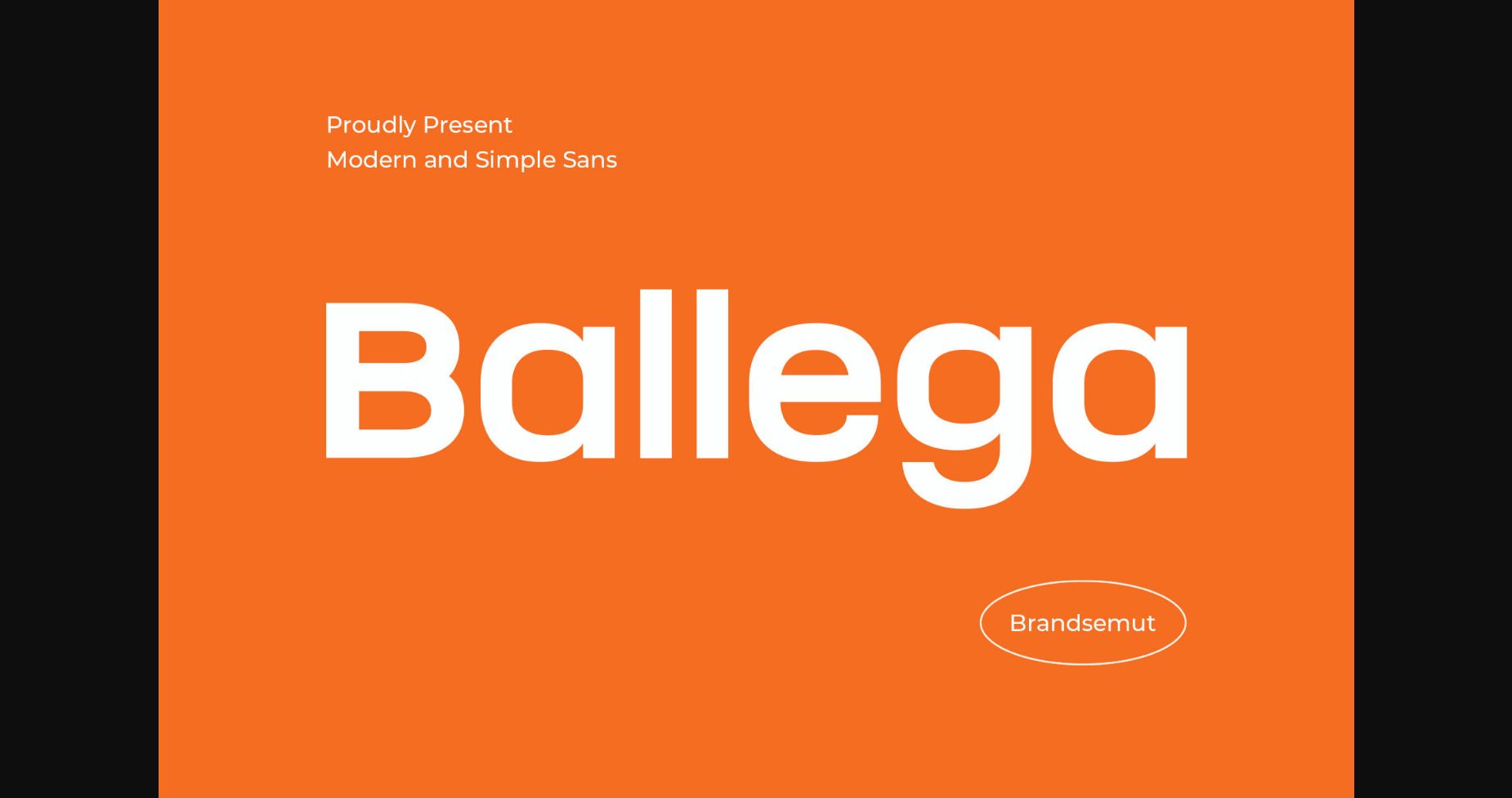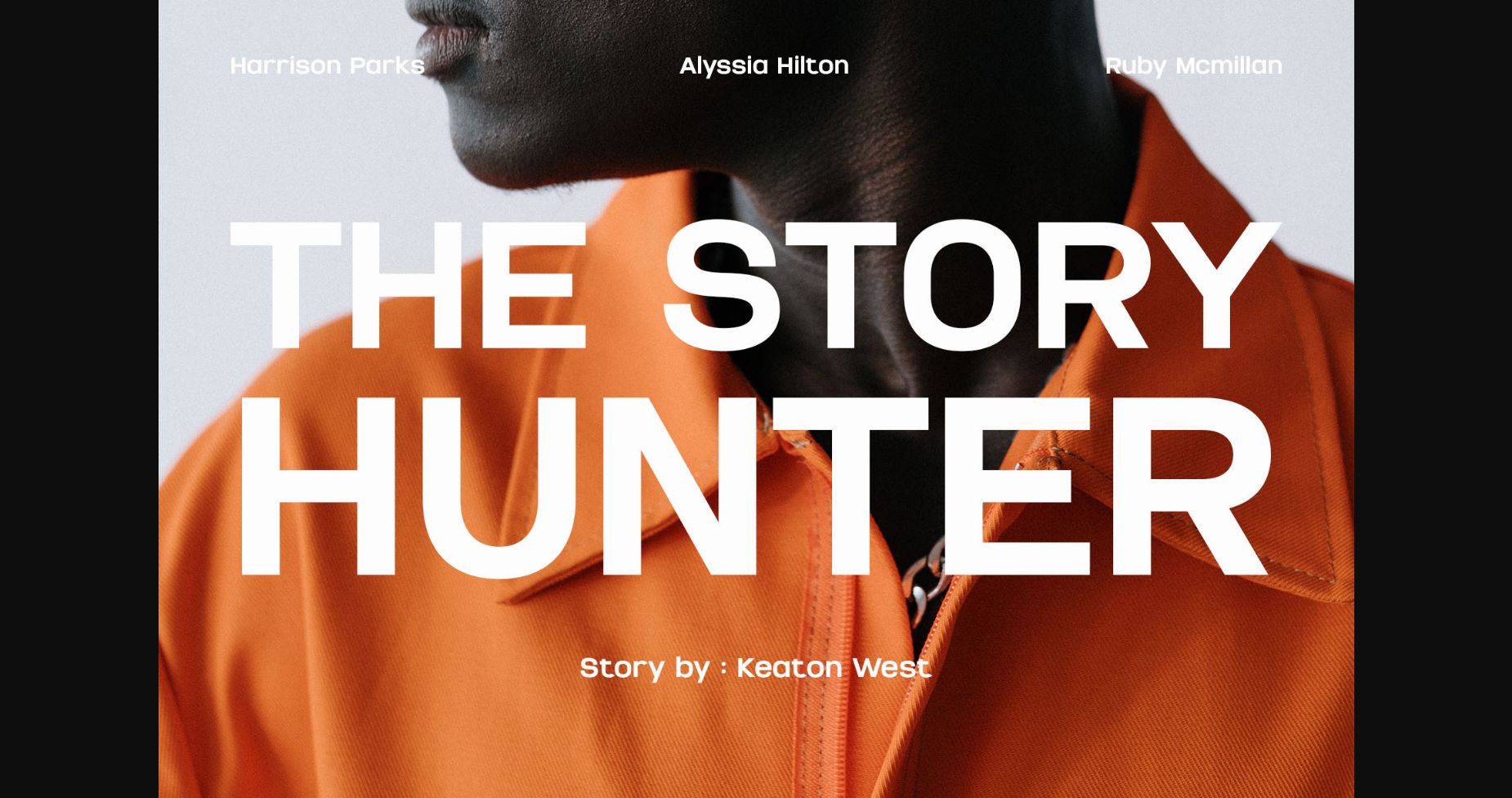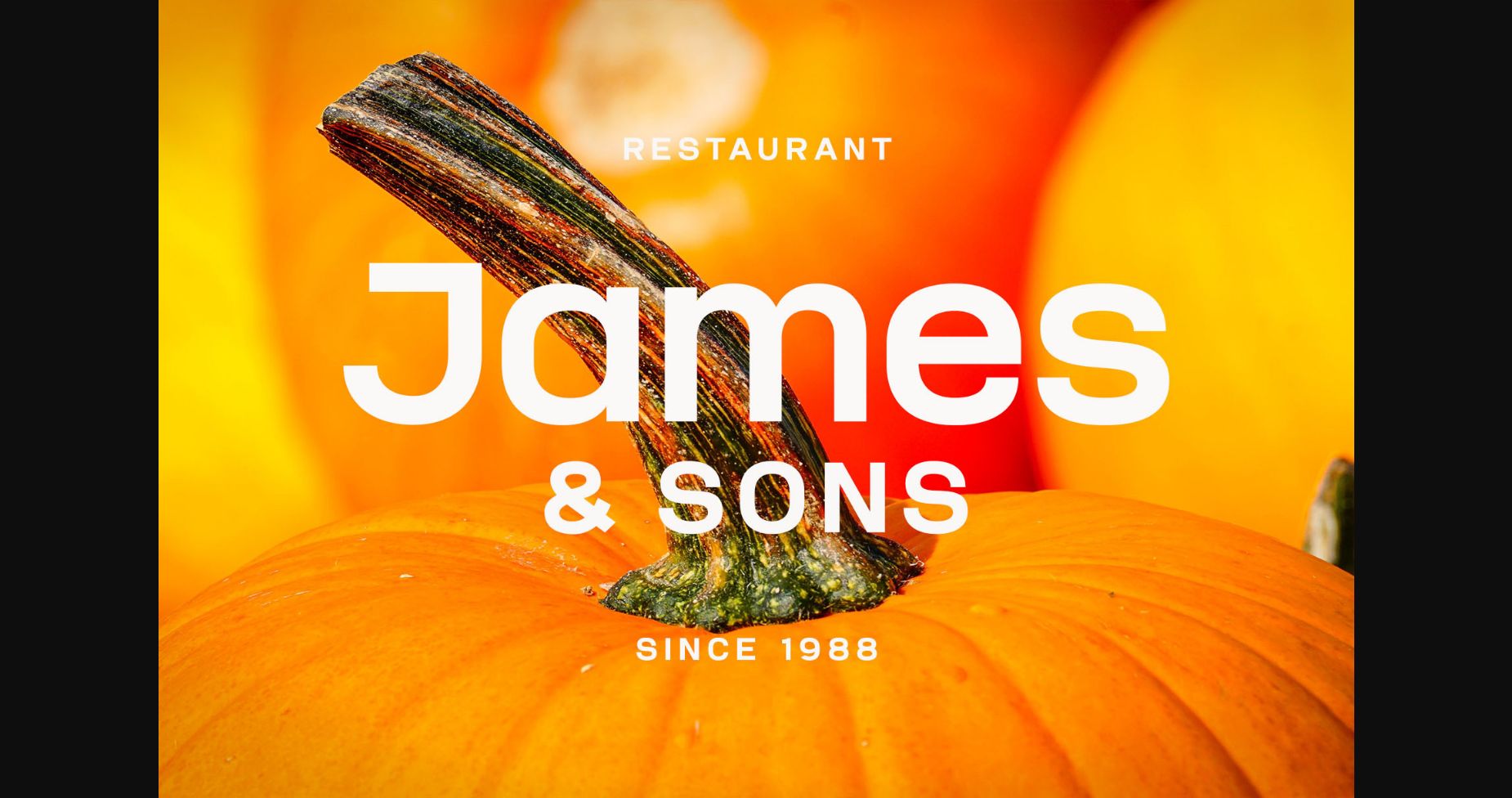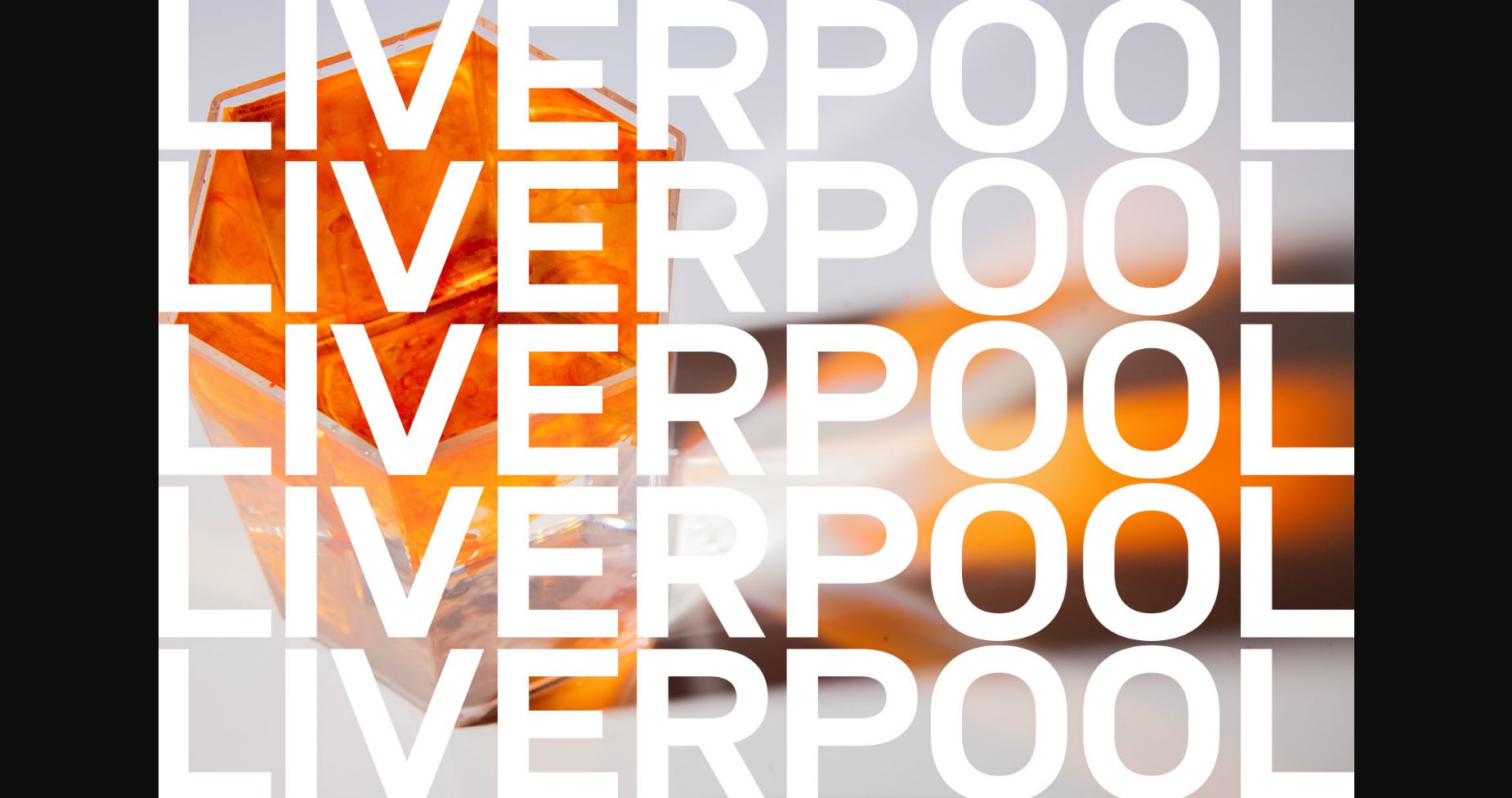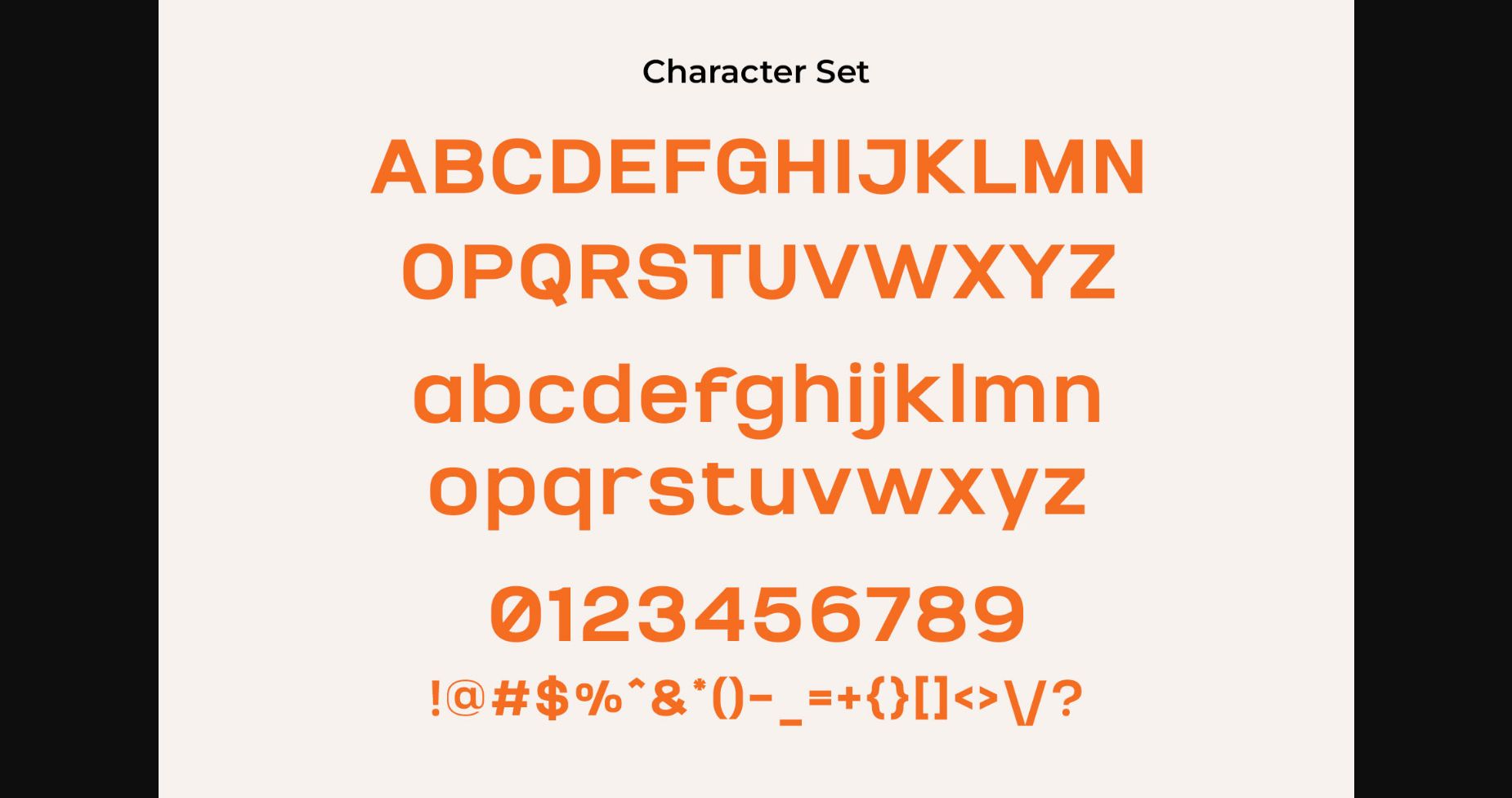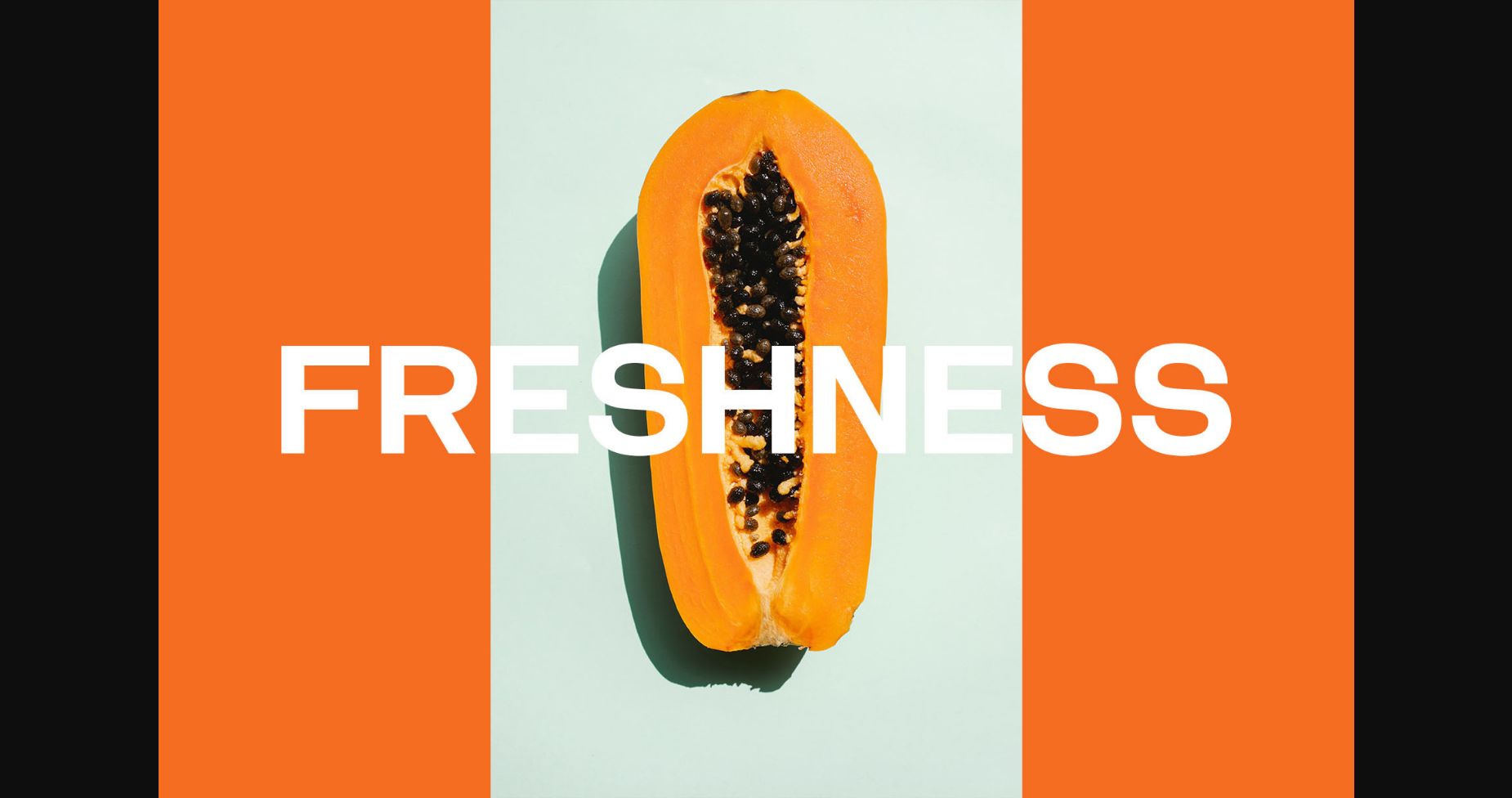
Ballega Font
About Ballega Font
Ballega is a modern and sleek sans-serif font that exudes simplicity and elegance. Its clean lines and uniform letterforms make it easy to read, perfect for use in body text or headlines. The unique design features slightly condensed letter shapes with subtle curves that give it a hint of personality while maintaining a minimalist look. Ballega is an ideal choice for designs that require a contemporary and professional appearance, such as corporate branding, advertising, or digital media.